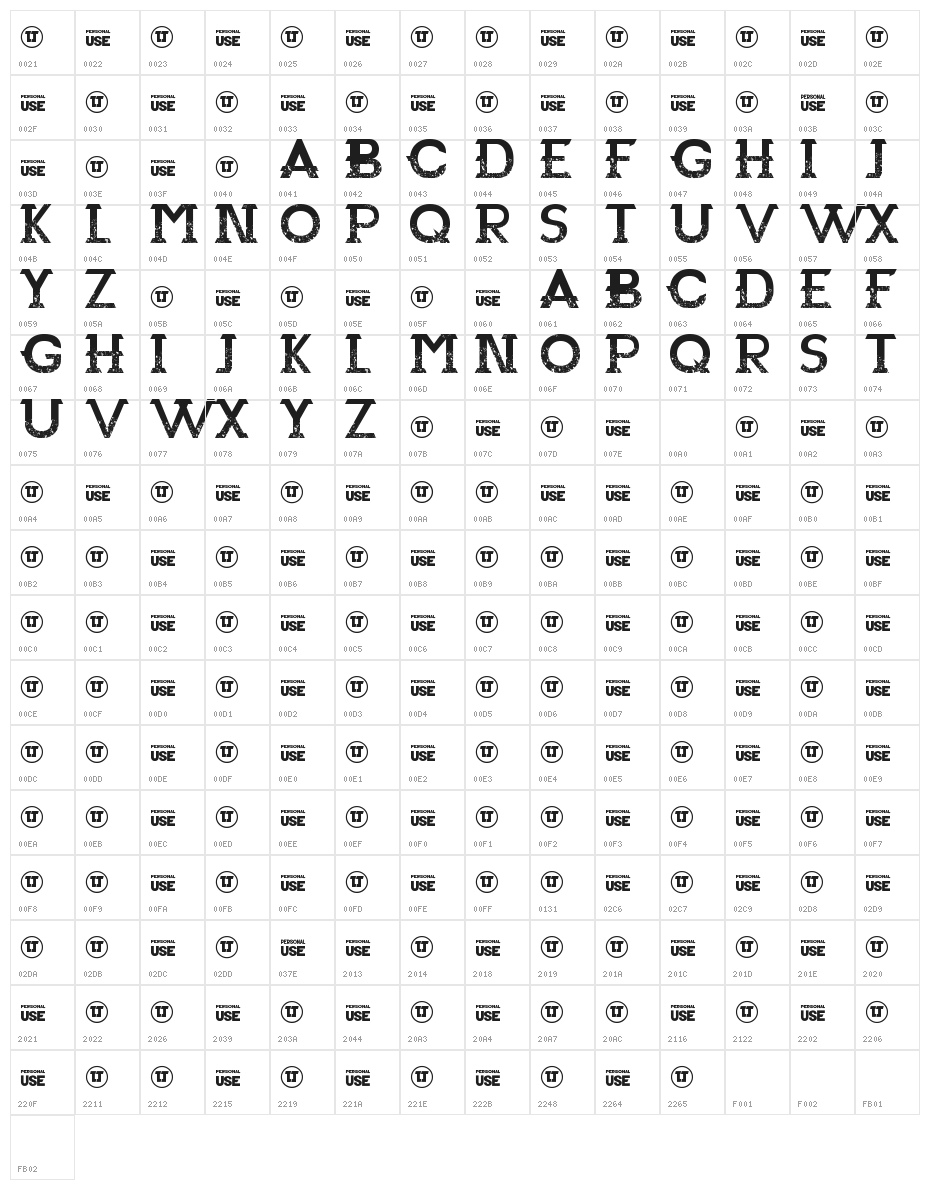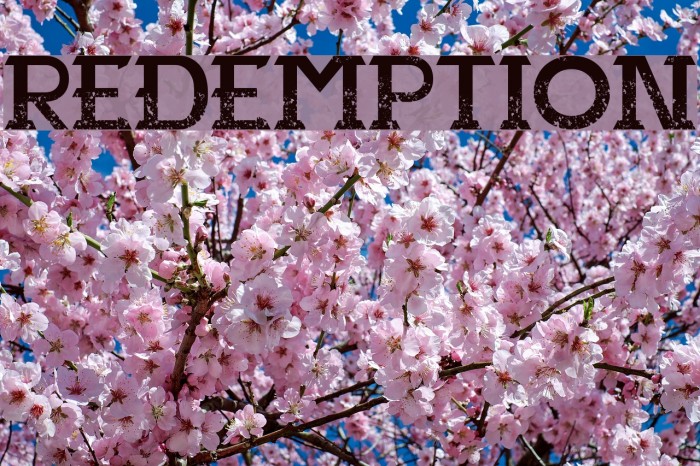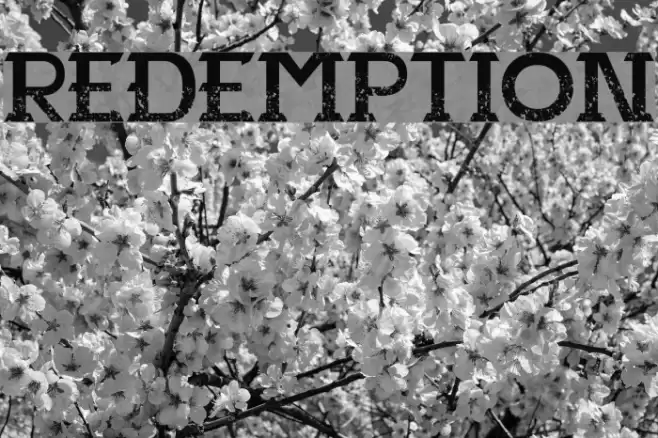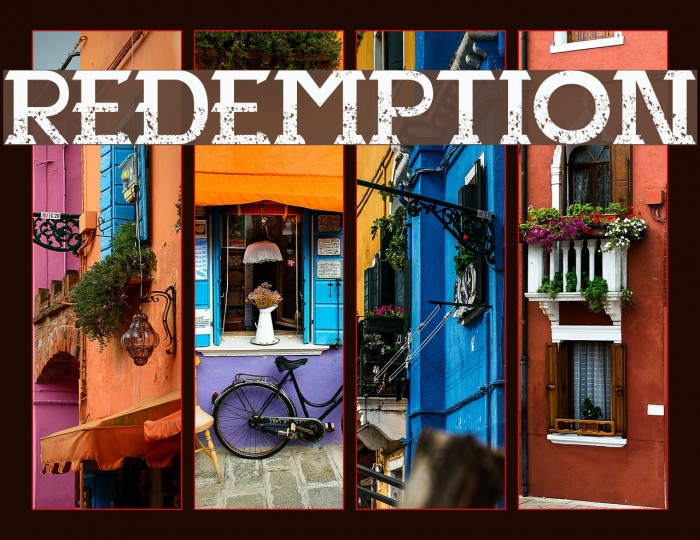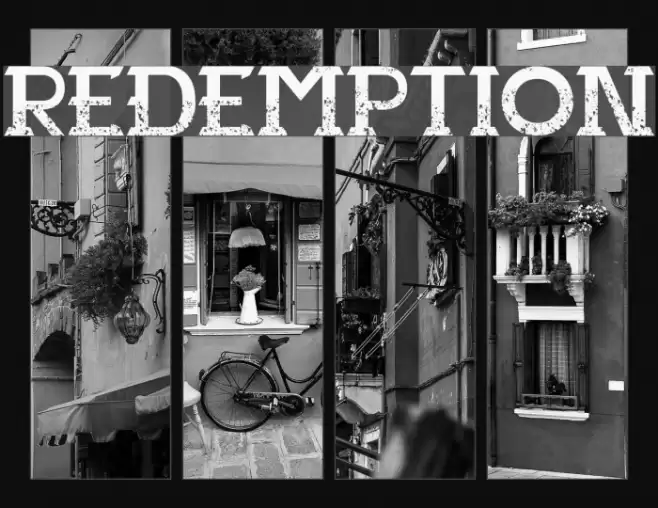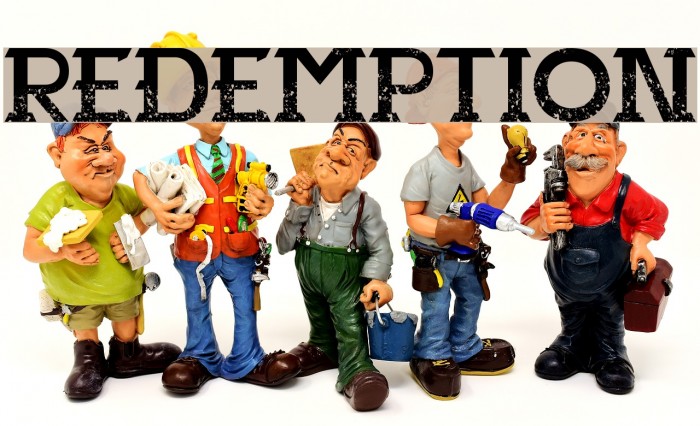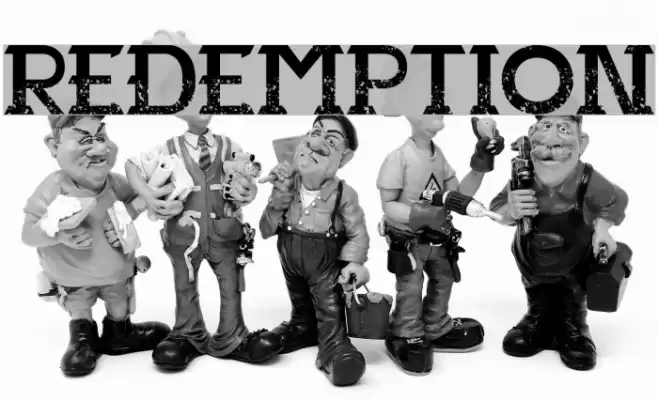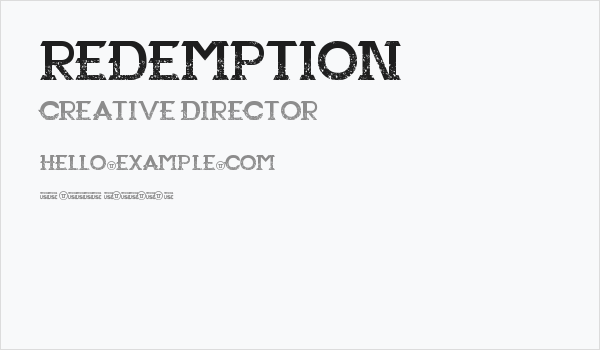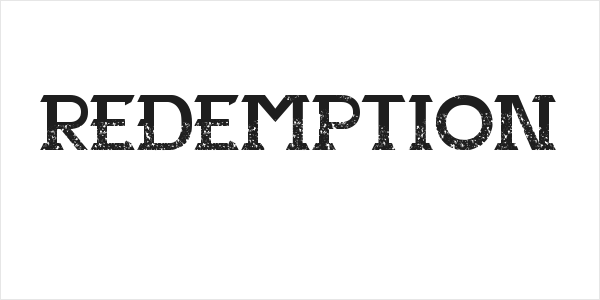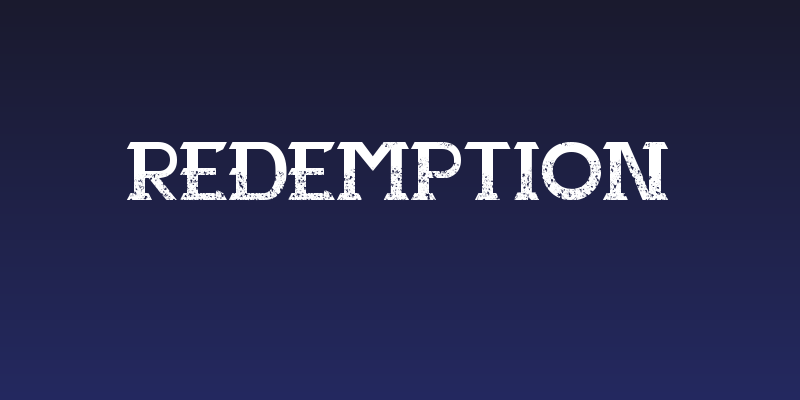
Redemption Font
Redemption Description
This font features a bold, distressed style with a vintage, grunge aesthetic. The uppercase letters are prominent and display a textured, worn effect, giving them a rugged and edgy appearance. The characters are well-defined with a consistent weight, making them suitable for impactful designs. The font's unique style is reminiscent of old, weathered signage or typewriter text, adding a sense of history and character to any project. Its bold nature ensures that it stands out, making it ideal for headlines or titles that need to capture attention.
| Proposed Projects | Ideal for posters, album covers, branding, and any design requiring a vintage or grunge look. |